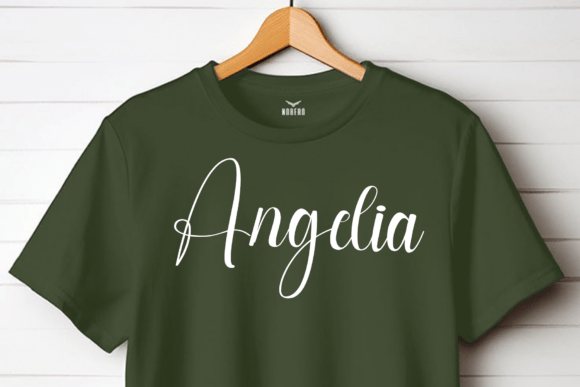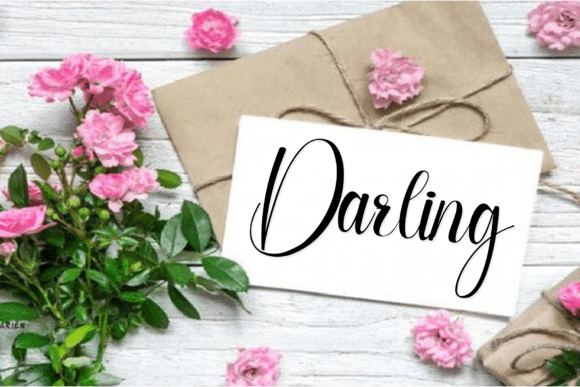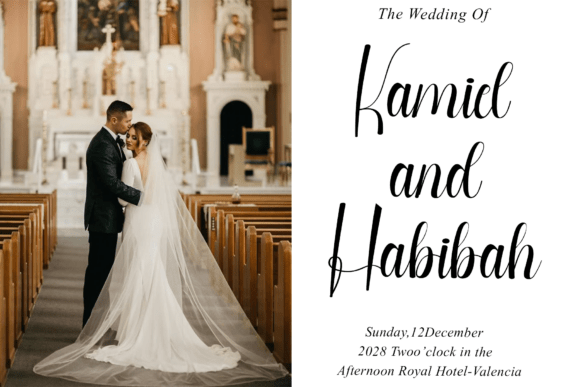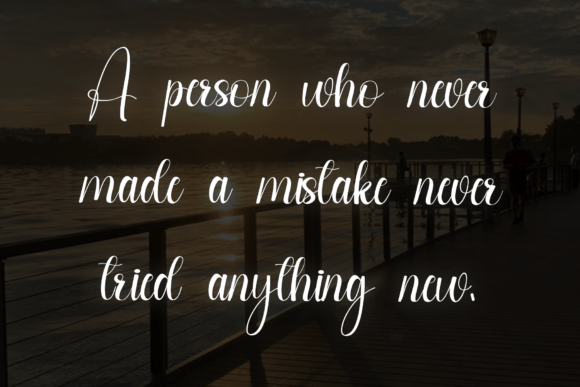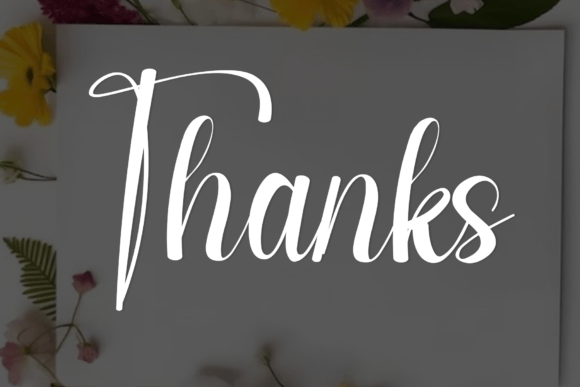
The Brilliance of Brilliant Calligraph: A Designer’s New Best Friend
I’ll never forget the design project that led me to discover the Brilliant Calligraph font. I was working on a travel photography portfolio for a client who wanted a clean, elegant look that would evoke the freshness of a mountain breeze. As I scrolled through font after font, I found myself stuck – nothing seemed quite right. That was until I stumbled upon Brilliant Calligraph. Its tall, thin strokes and subtle slant immediately caught my eye, and I knew I’d found the perfect fit.
• ✨ Crisp Elegance: Brilliant Calligraph’s refined aesthetic brings a sense of sophistication to any design project.
• ✅ Versatility: Its clean and approachable style makes it perfect for a wide range of applications, from travel photography to outdoor gear branding.
• 💡 Legibility: Even at smaller sizes, Brilliant Calligraph remains clear and easy to read.
• 🤔 Limited Extras: While Brilliant Calligraph is a beautiful font on its own, it doesn’t come with a wealth of extras like some other fonts.
• ⚠️ Overuse: As with any elegant font, there’s a risk of overusing Brilliant Calligraph. Make sure to balance it with other design elements.
4. Experiment with OpenType features like ligatures and stylistic alternates to add visual interest.
The Story Behind Brilliant Calligraph
While the true story behind Brilliant Calligraph remains a mystery, it’s easy to imagine a designer inspired by the crisp elegance of a mountain morning. Perhaps they wanted to create a font that would evoke feelings of freshness and clarity – a perfect fit for travel photography and outdoor branding.
Q: What makes Brilliant Calligraph unique?
A: Brilliant Calligraph’s tall, thin strokes and subtle slant set it apart from other handwritten fonts.
Q: Is Brilliant Calligraph difficult to read?
A: No, Brilliant Calligraph is designed to be clear and legible, even at smaller sizes.